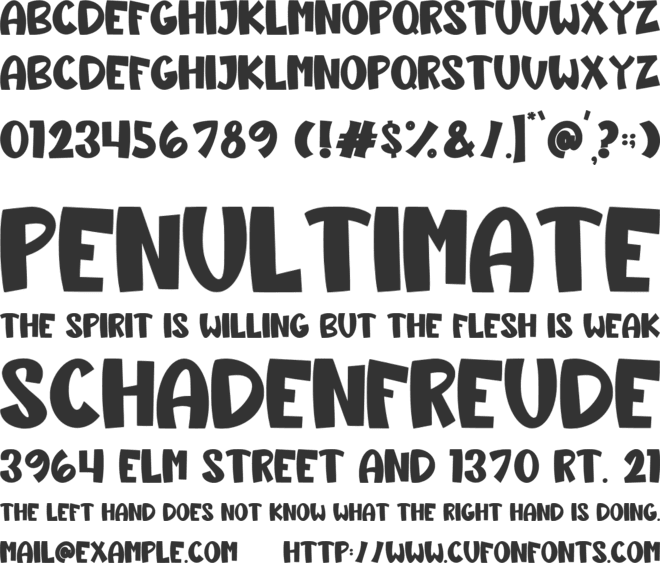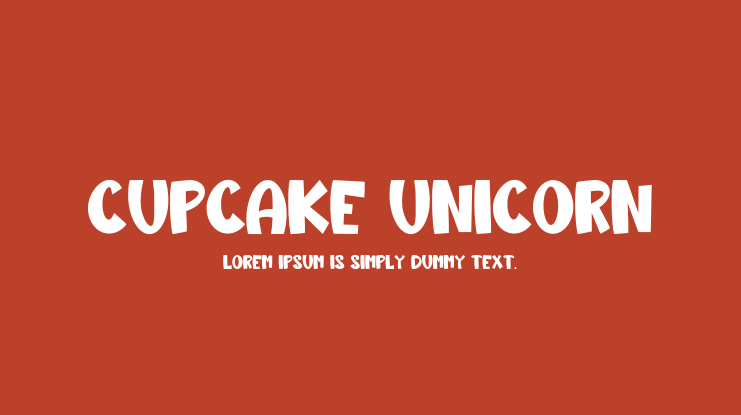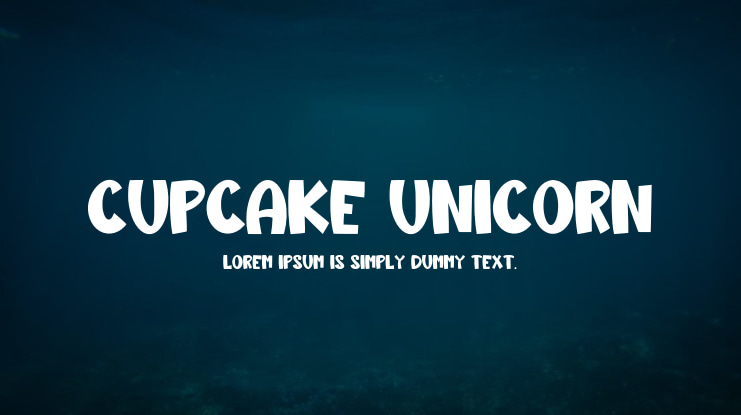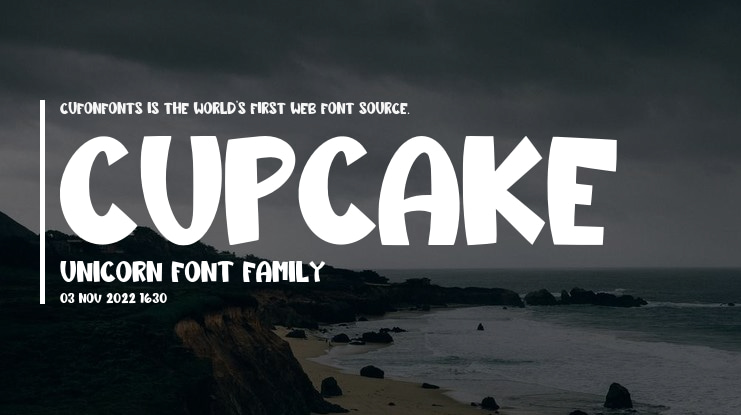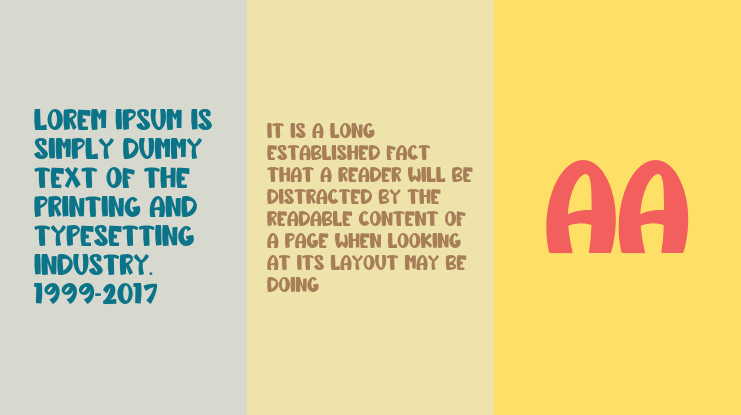
Cupcake Unicorn Font Family
Cupcake Unicorn - Cute Display Font that encompasses lowercase, uppercase, symbols, and supports multiple languages. The font boasts numerous ligatures, alternates, and more. It is ideal for fashion, branding, catalogs, and any other design project you have in mind. For more free font downloads, please visit: https://fontbundles.net/free-fonts.